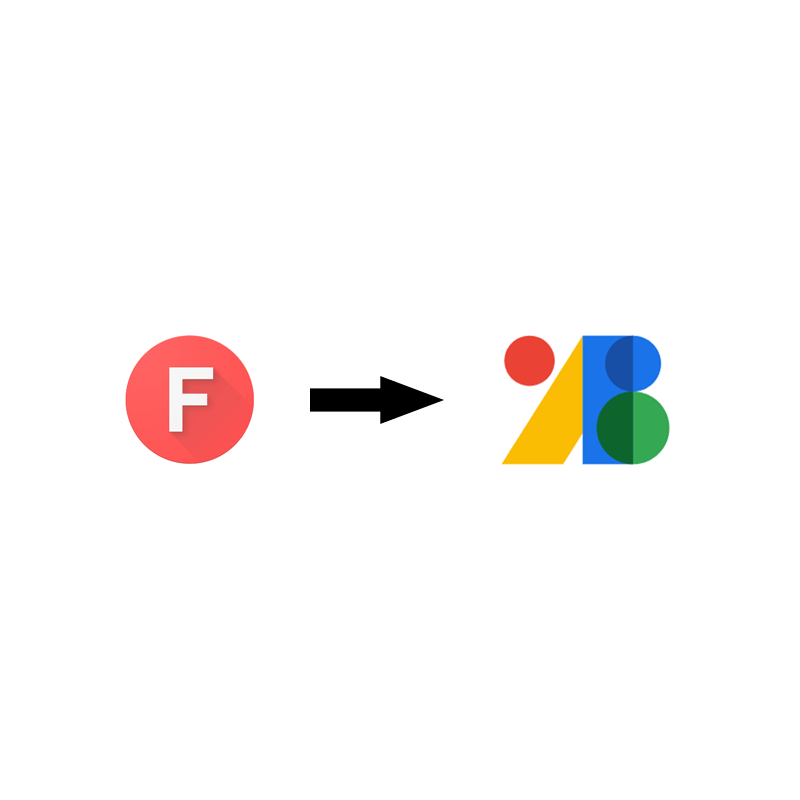
Back in 2020, Google rolled out a whole set of redesigned logos for many of its products and services.
While the redesigned logos and icons were meant to give a fresh new look and to also better emphasize Google's brand color, it also introduced confusion due to their similarities. As a result, the rebrand grew more and more unpopular, and somehow unforgiven.
But Google is having bit of a change in its approach when it introduced a redesigned logo for Google Fonts.
While the logo borrows the same minimal, and four-color design language found on other updated logos for Google products and services, the approach is significantly different.
The logo for Google Fonts showcases a typographical affair, featuring an overlapping series of colorful glyphs and shapes.
While this design is probably not the best Google can do, and is much more overwhelming than the 'F' monogram found on Google Fonts' old logo, the updated logo does receive better acceptance.
According to Google:
"The new visual mark gives us greater design flexibility, as well as inspiration for the overall look and feel of the UI to better reflect our vision for the future of Fonts."
But while it's certainly a more contemporary design than the old logo, perhaps the best thing about this design is that, Google managed to make the logo distinct from the likes of Gmail, Google Photos, Google Drive and others, while retaining that familiar four-tone Google aesthetic.
The logo is after all unique, a trait that any logo should have.
With its clean and jagged edges, this logo can certainly stand out more.
Alongside the redesigned logo for Google Fonts, Google also announced that the font library also supports open source icons, starting with the company's own Material Design icons.
Google Fonts was previously known as Google Web Fonts.
First launched back in 2010, and revamped in 2011, the online library consists of more than a thousand of free and open source font families, presented in an interactive web directory for easy browsing. Google Fonts also provides APIs for conveniently using the fonts via CSS and Android.